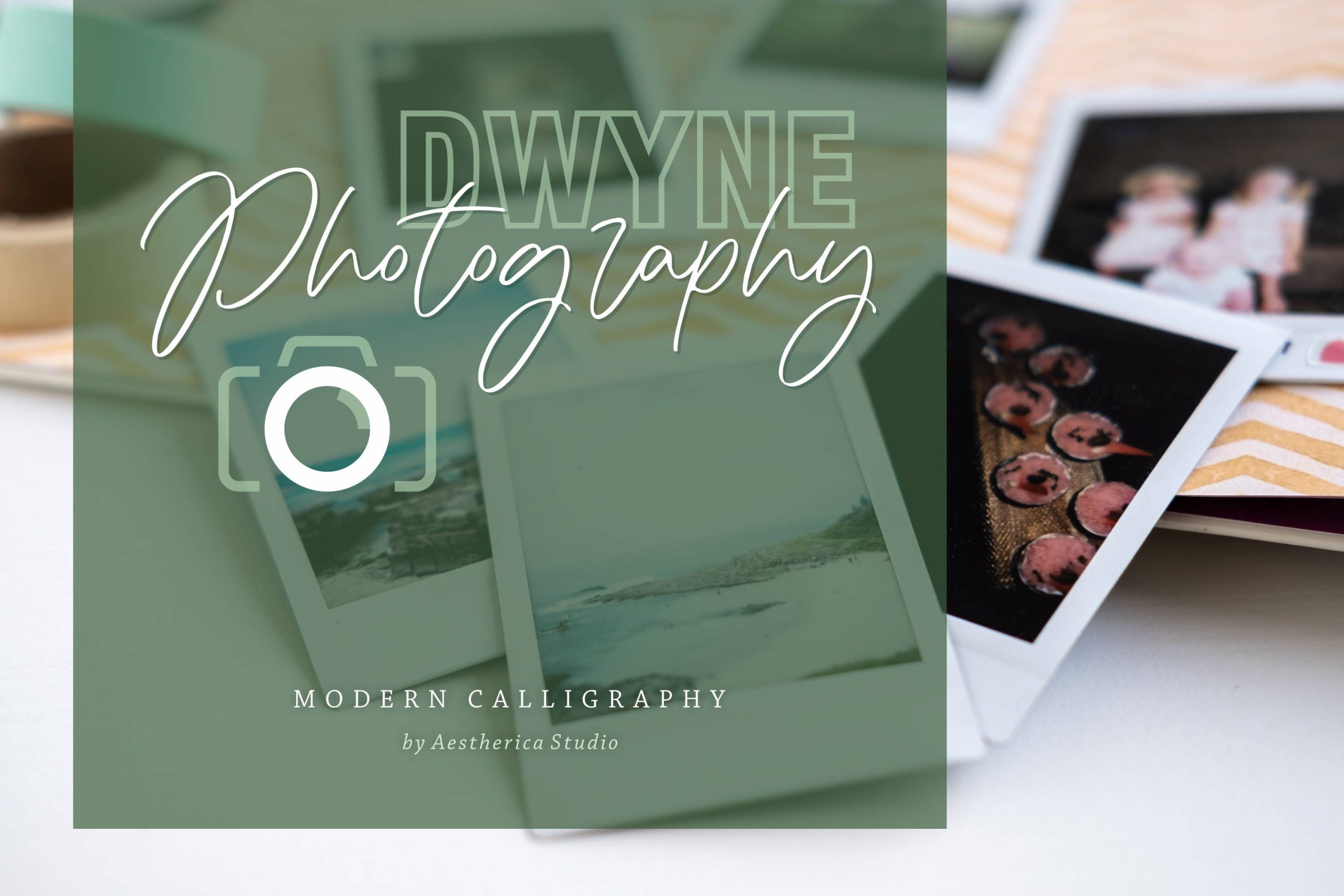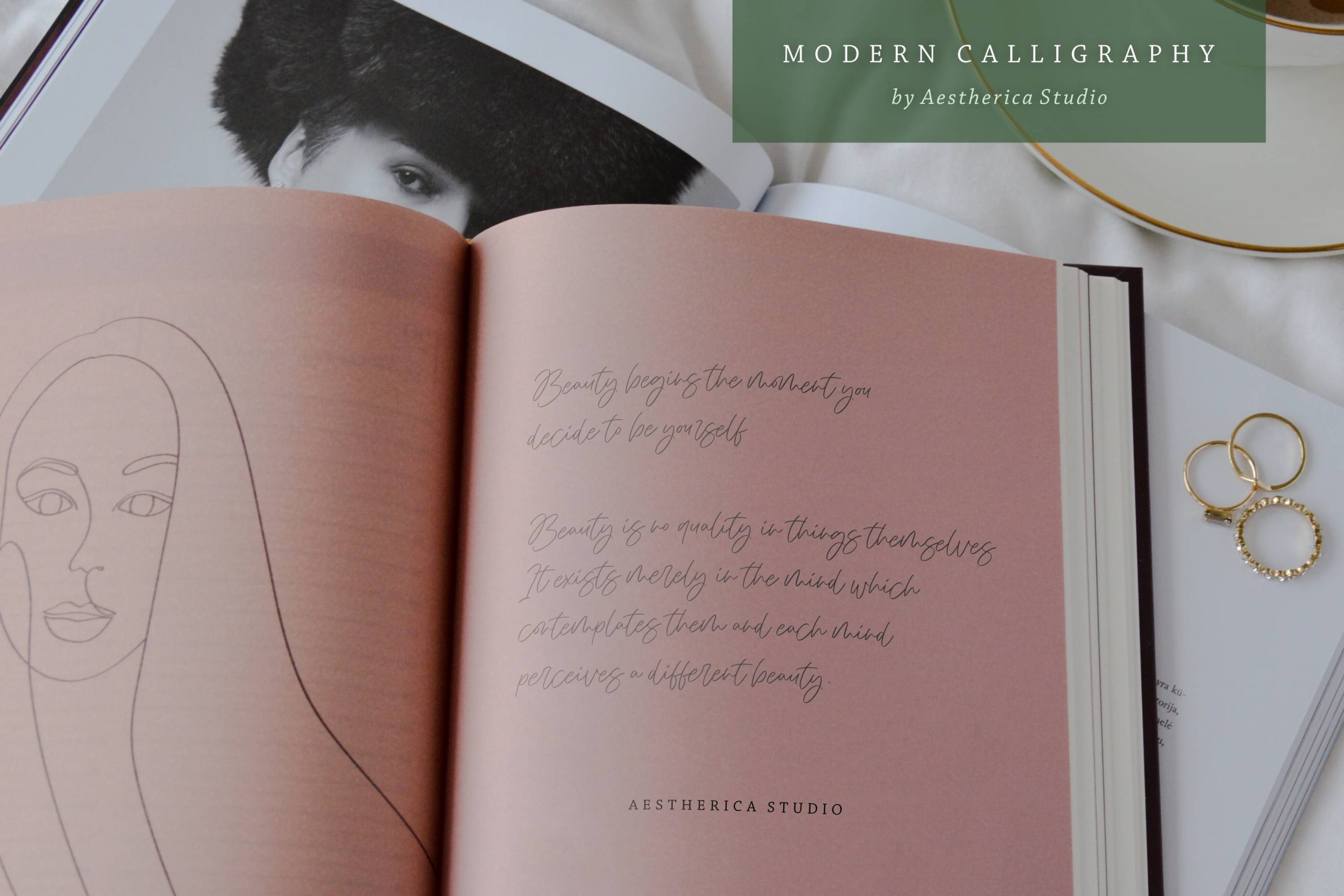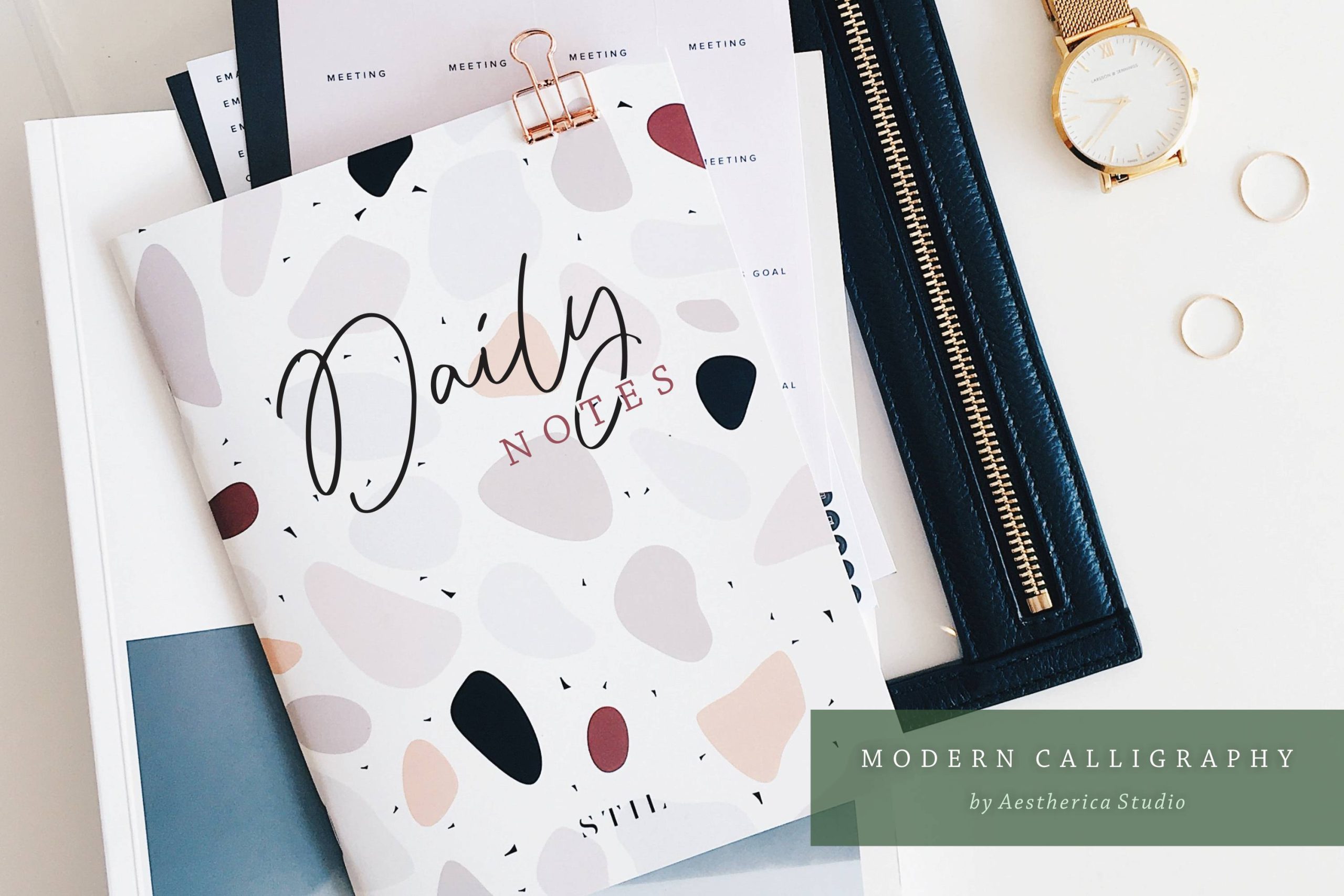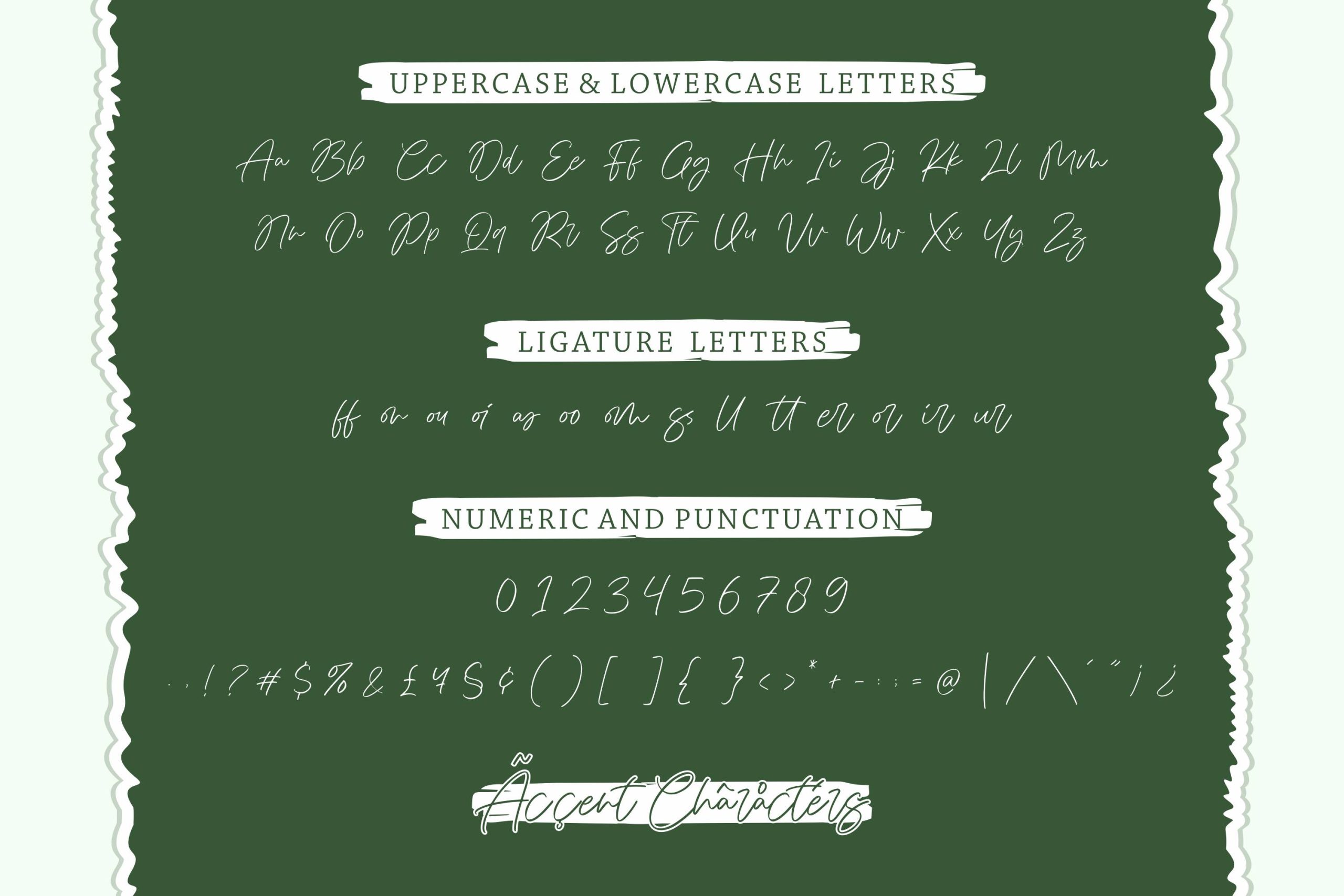
Bonjourno Font
Bonjourno Handwritten Font
It’s a beautiful modern calligraphy font based on manual handwriting. The stylistic alternate, ligatures, and the tick and thin strokes make this font looks like real handwriting. This font is perfect for logos, invitations, labels, magazines, books, greeting/wedding cards, packaging, fashion, make-up, stationery, novels, labels, or any type of advertising purpose.